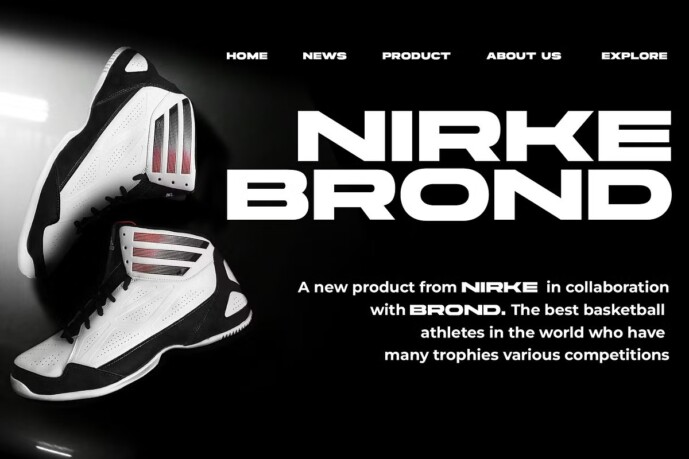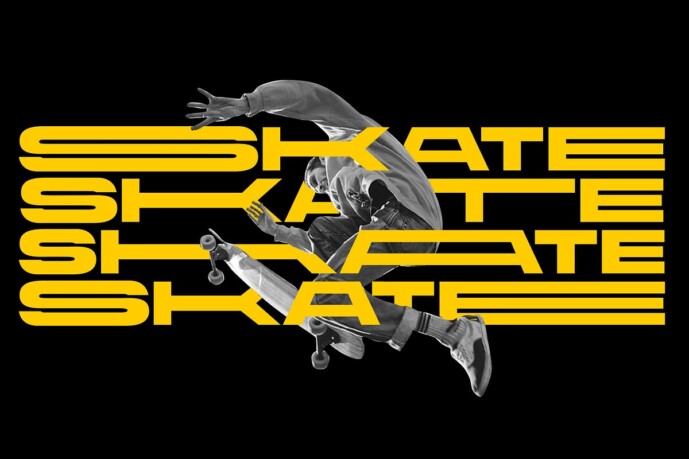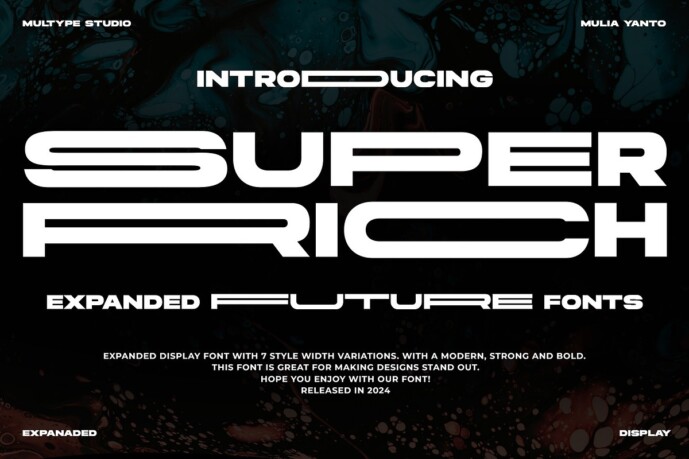
Super Rich Expanded Font
Designer: Multype Studio
Super Rich Expanded is a font with 7 style width variations. This font has 2 files. The basic version only consists of uppercase letters without any alternative characters. For the stretch version, there are 7 alternative characters. This is a cool sans serif font with a modern, strong, bold, and futuristic theme. With letters that are neatly arranged, beautiful and structured, this font is great for making designs stand out in both formal and non-formal designs.
Super Rich Expanded gives a gorgeous feel to a variety of specially in logo, branding, promotions, posters, book covers, magazine layouts, social media, headlines, titling, movie title, logo brand, logo company, layout website and other design. Let your imagination run free!